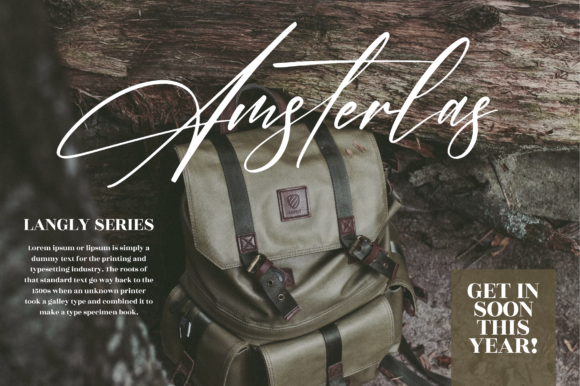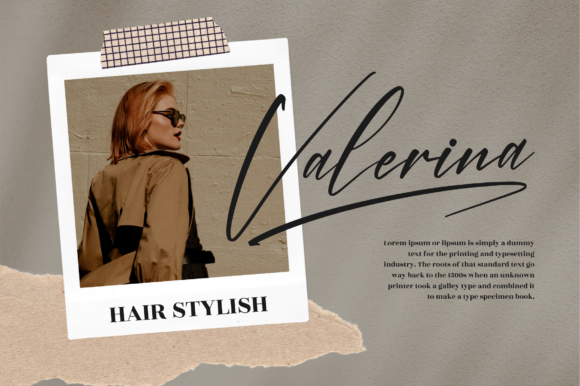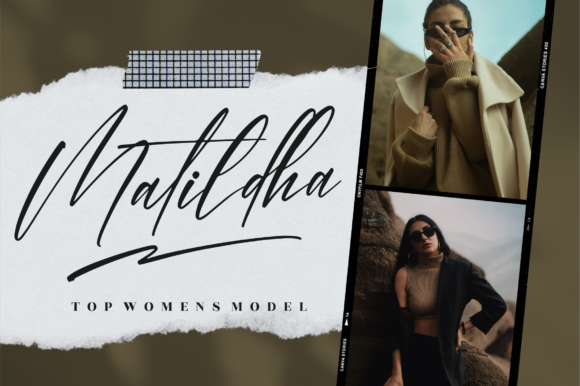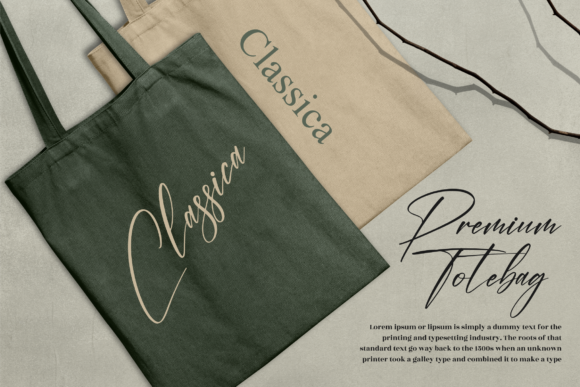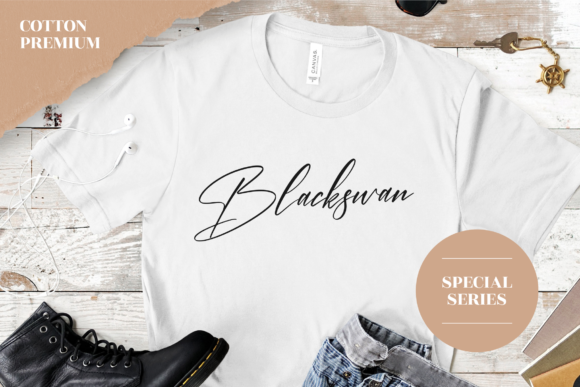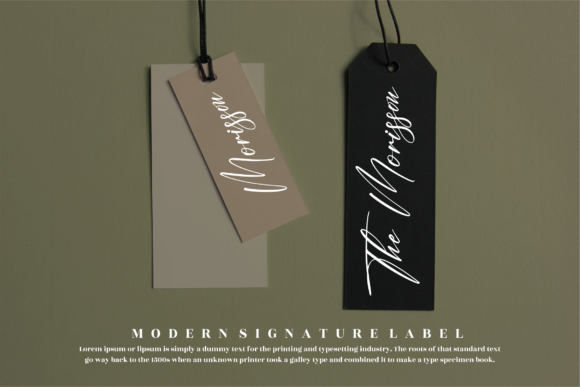
The Enchanting Amsterdam Signature Font: A Designer’s Dream
I’ll never forget the time I was working on a romantic getaway brochure for a client, and I just couldn’t find the right font to capture the essence of the trip. The project required something elegant, yet playful; something that would make the reader feel like they were strolling through the charming canals of Amsterdam on a warm summer evening. That’s when I stumbled upon the Amsterdam Signature font, and it was love at first sight! 💕
- ✅ The Amsterdam Signature font is an enchanting handwritten script that adds a touch of romance to any project.
- ✅ Its versatility makes it perfect for a wide range of applications, from greeting cards to headlines.
- ✅ The font has a unique, whimsical feel that sets it apart from more traditional script fonts.
- ✅ It’s incredibly legible, even at smaller sizes.
- ⚠️ Some of the letters have a bit of a quirky, uneven feel, which may not be suitable for very formal or corporate projects.
- ⚠️ The font doesn’t have a huge range of weights or variations, so you may need to get creative with sizing and styling to achieve the desired effect.
The Story Behind Amsterdam Signature
Amsterdam Signature was designed by a talented type designer who wanted to capture the essence of the city of Amsterdam in a font. Inspired by the city’s charming canals, historic architecture, and romantic atmosphere, the designer created a font that would evoke feelings of warmth and elegance. The result is a beautiful, unique script font that’s perfect for adding a touch of sophistication to your designs.
Q: Is Amsterdam Signature suitable for body text?
A: While Amsterdam Signature is a beautiful font, it’s primarily designed for headlines and display text. For body text, you may want to choose a font with better legibility at smaller sizes.